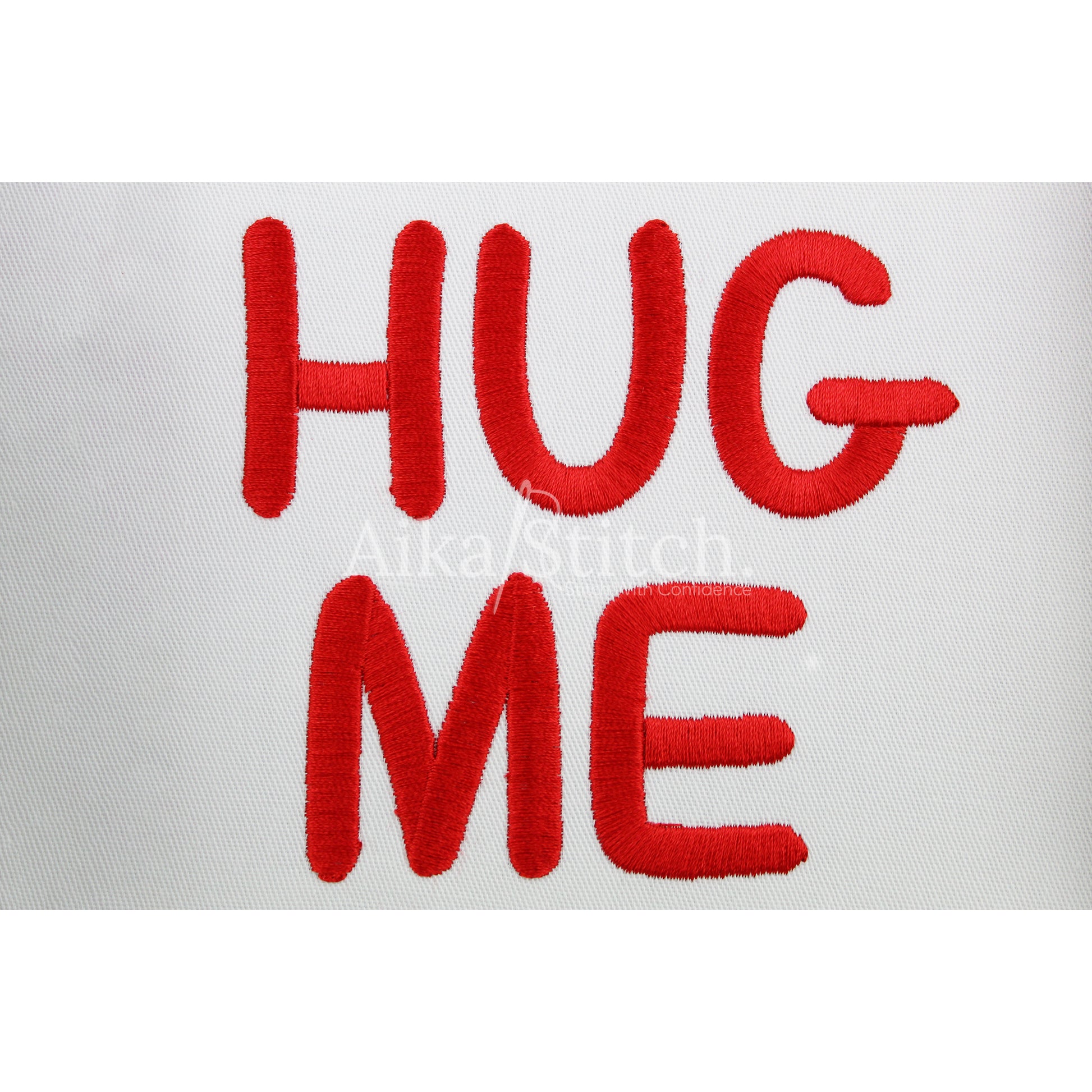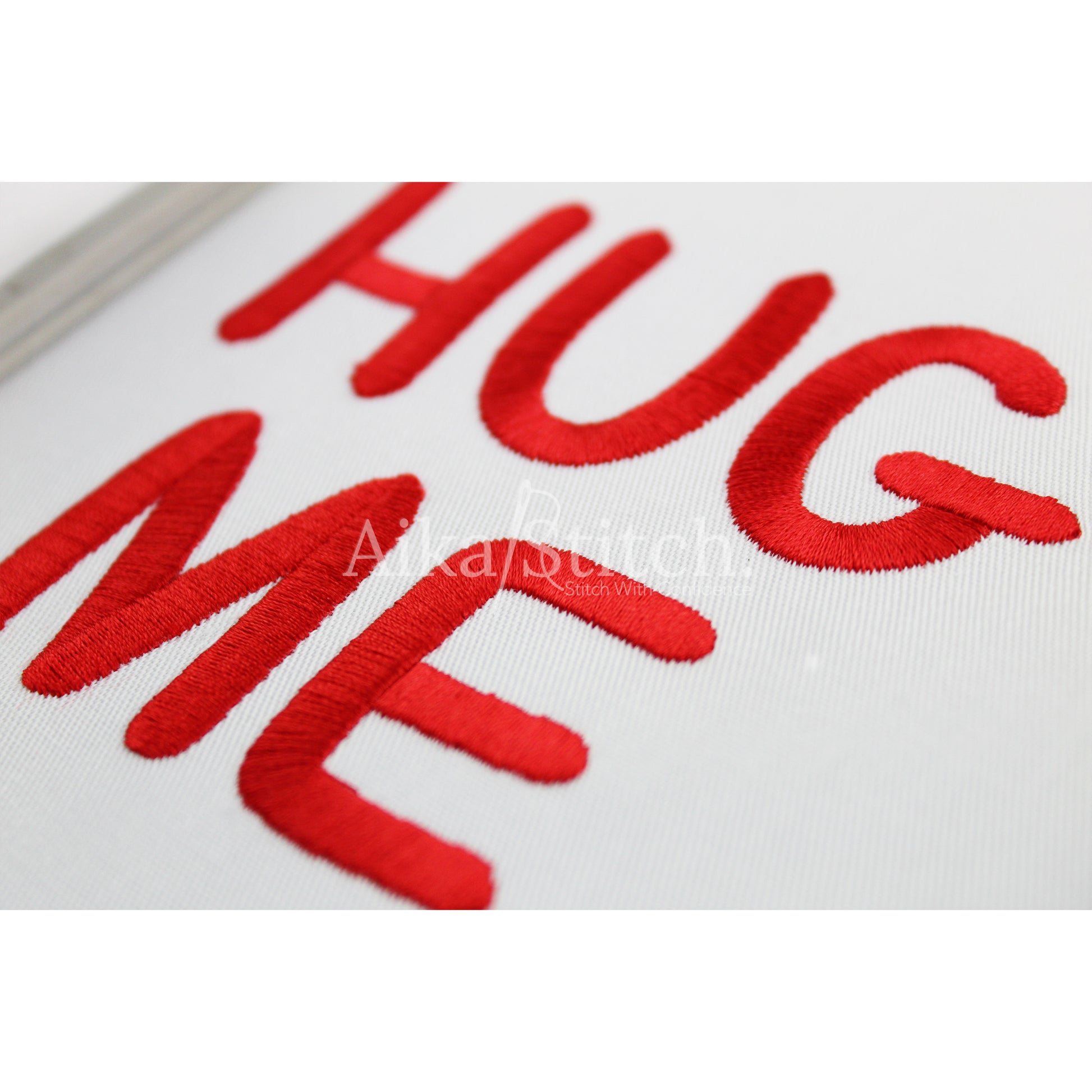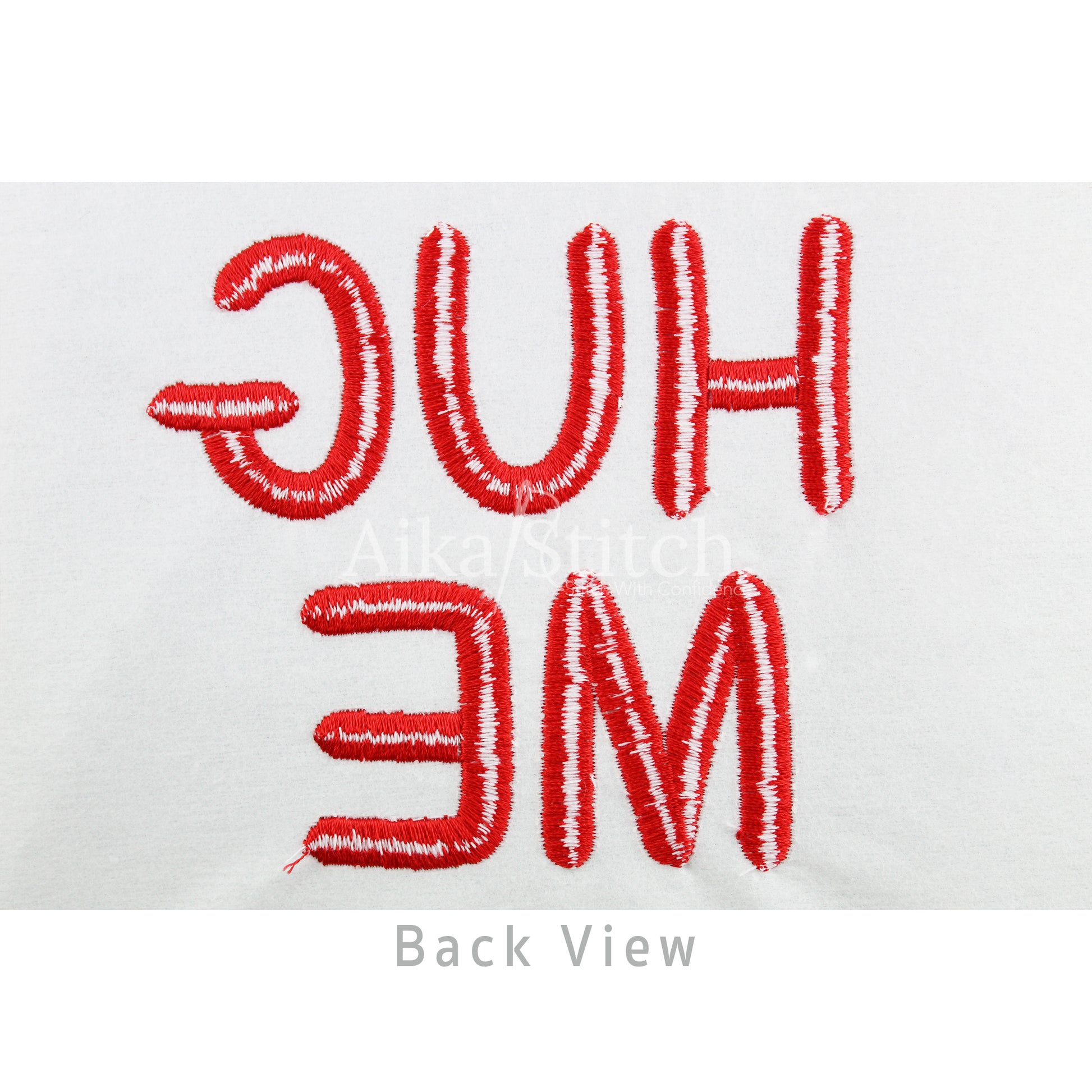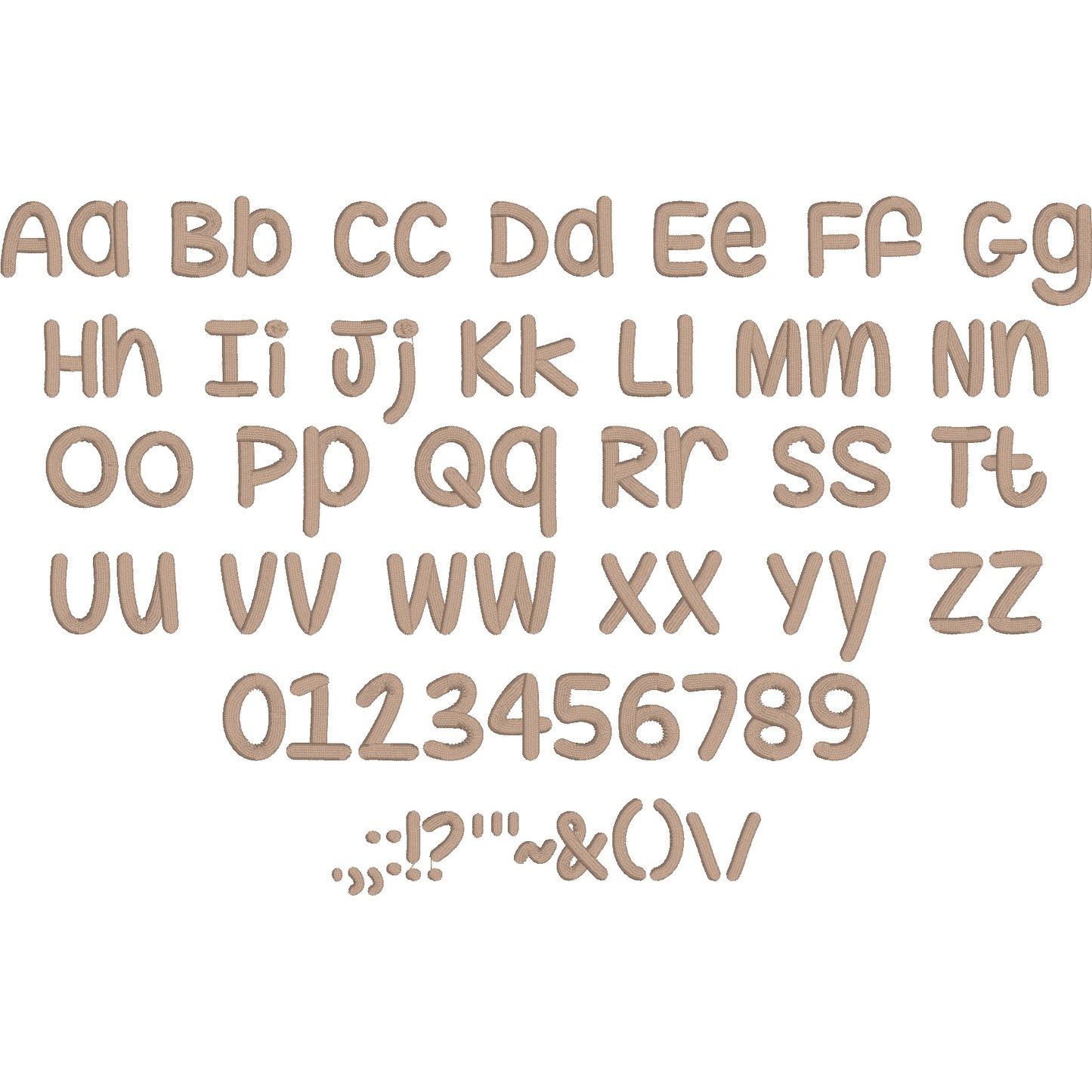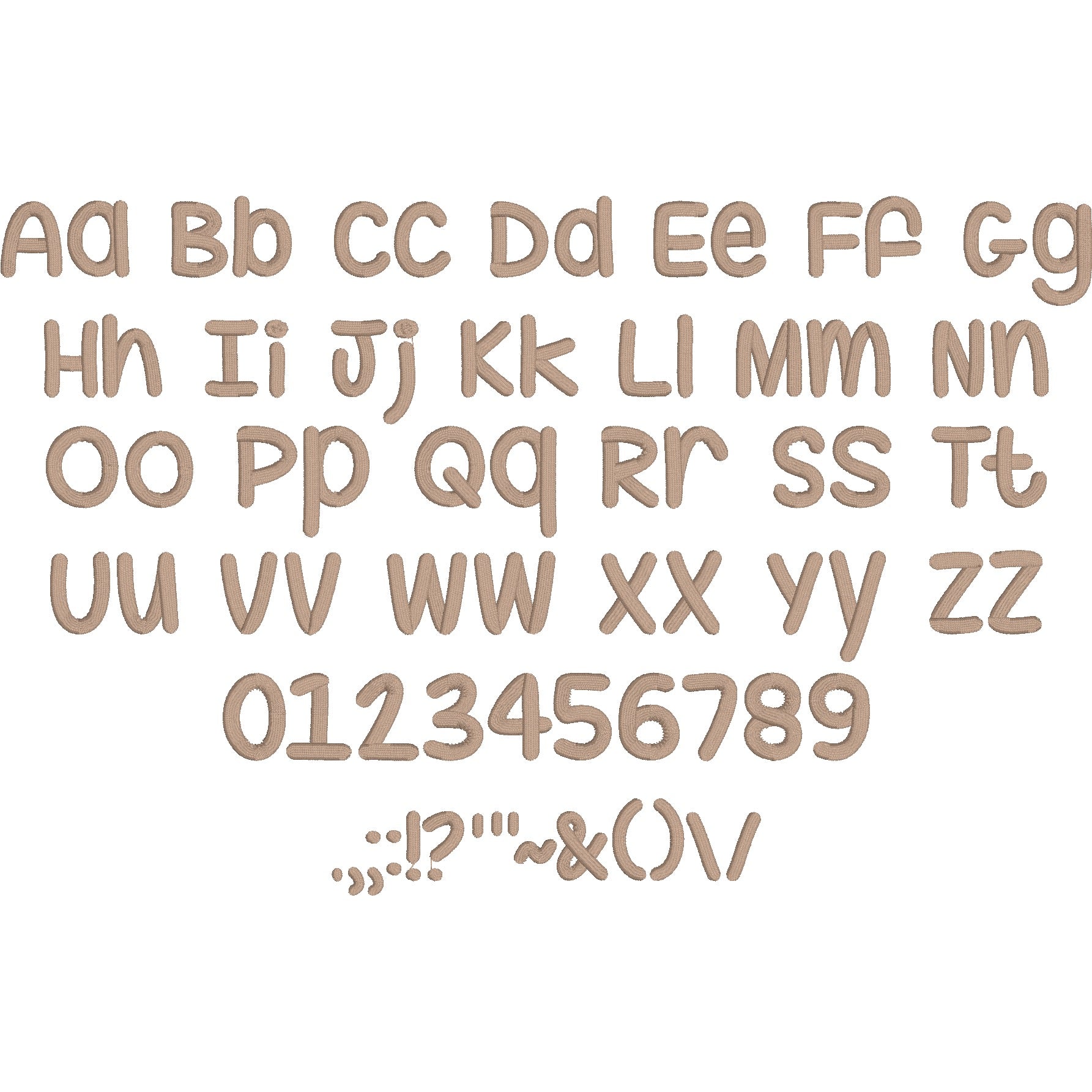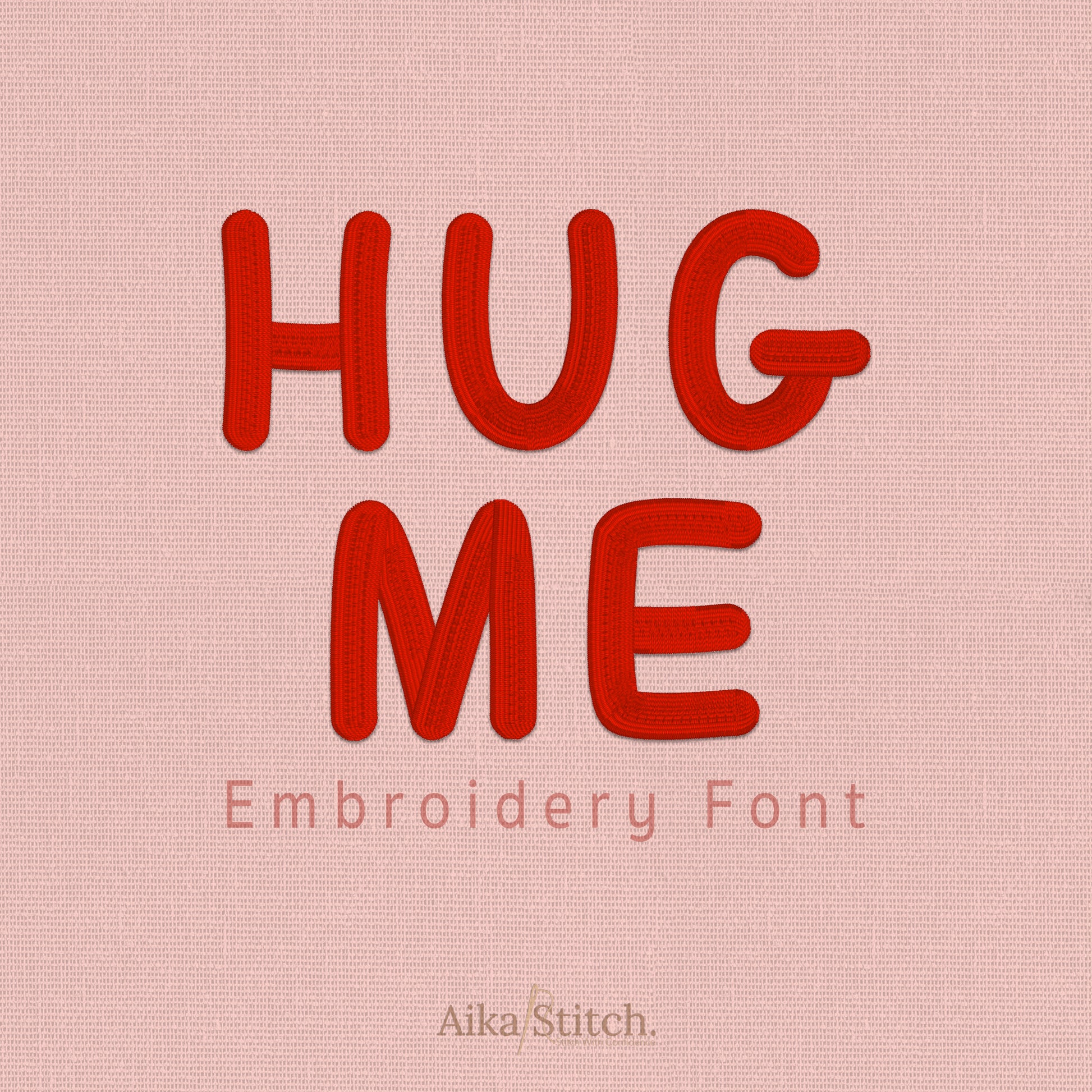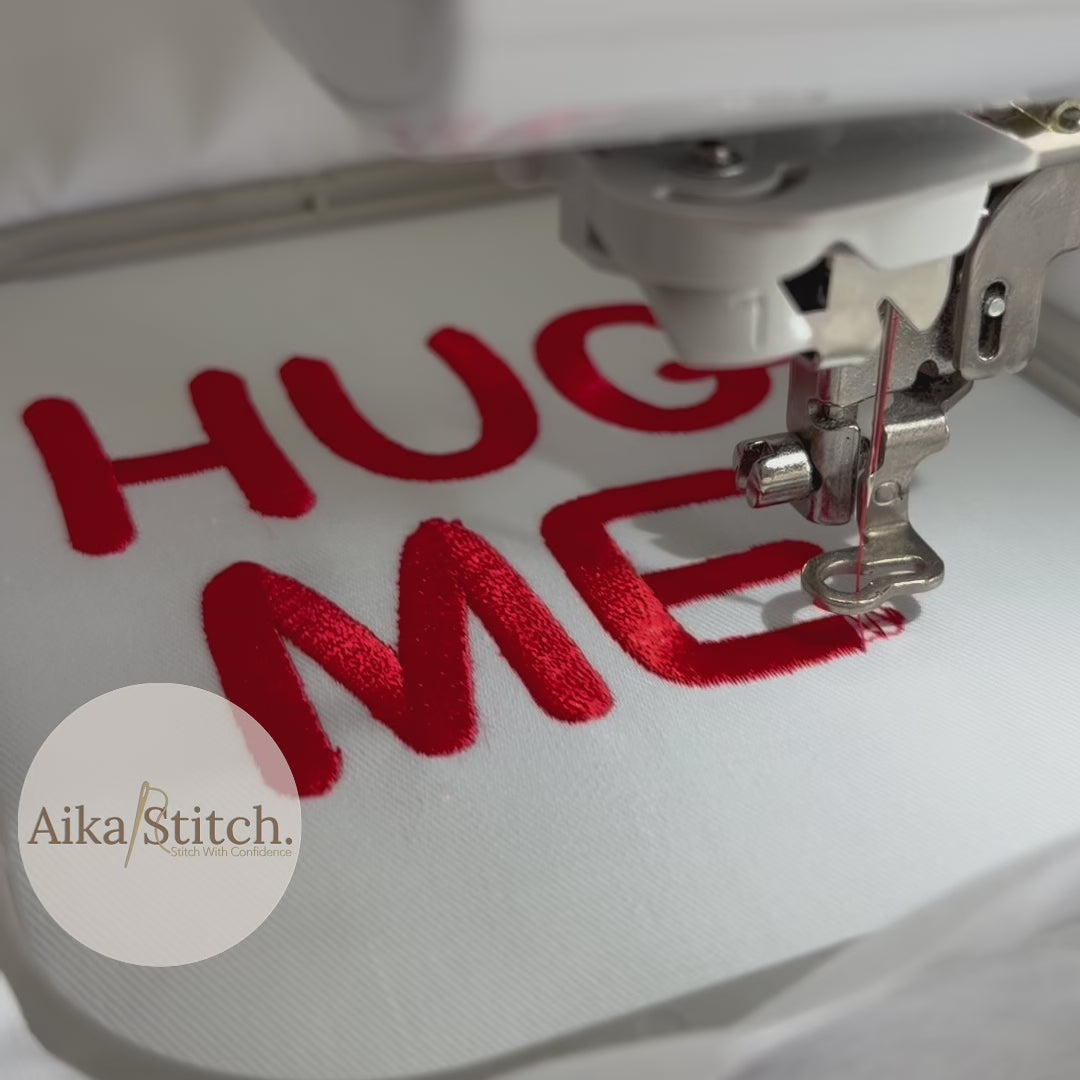
Hug Me is a Simple Bold machine embroidery font featuring beautiful satin stitch lettering. Perfect for shirts, towels, hats, baby gifts, monograms, and small business embroidery projects.
• A–Z Uppercase Letters
• a–z Lowercase Letters
• 0–9 Numbers
• Punctuation & Special Characters
• Satin Stitch